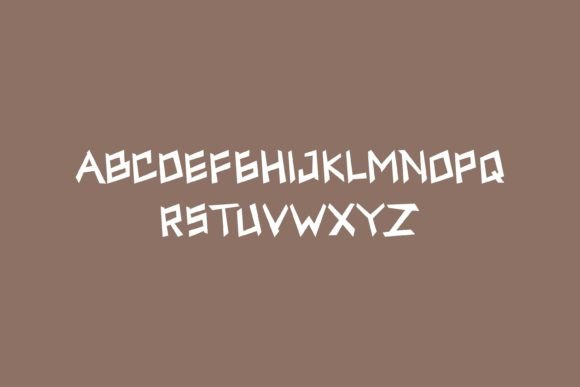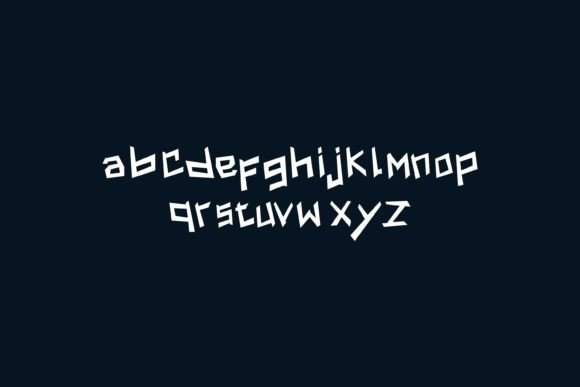
Brokman Font: Elevate Your Branding with a Bold and Authentic Display Font
In the world of design, fonts play a crucial role in conveying the message and aesthetic of a brand. A well-chosen font can make all the difference in creating a lasting impression on your audience. If you’re looking for a font that exudes confidence, modernity, and authenticity, look no further than Brokman Font. This bold and authentic display font is suitable for a wide range of branding projects, including logos, t-shirt printing, exports, and more.
What is Brokman Font?
Brokman Font is a carefully crafted display font designed to make a statement. Its bold and sturdy structure makes it perfect for headlines, titles, and short texts. The font’s authentic feel gives it a unique character that sets it apart from other fonts in the market. Whether you’re looking to create a logo, brochure, or social media graphics, Brokman Font is an excellent choice.
Key Features of Brokman Font
- Bold and Authentic: Brokman Font boasts a bold and authentic design that gives it a distinctive edge.
- Modern and Outstanding: The font’s modern aesthetic makes it suitable for a wide range of contexts, from digital media to print materials.
- High Versatility: Brokman Font can be used for various branding projects, including logos, t-shirt printing, exports, and more.
- Ease of Readability: Despite its bold structure, Brokman Font remains highly readable, making it perfect for short texts and headlines.
Use Cases for Brokman Font
Brokman Font’s versatility makes it an excellent choice for various design projects. Here are some use cases where Brokman Font shines:
- Logo Design: Create a lasting impression with a bold and authentic logo that showcases your brand’s personality.
- T-Shirt Printing: Add a modern touch to your apparel designs with Brokman Font’s bold and eye-catching style.
- Exports and Merchandise: Use Brokman Font to create stunning merchandise, such as stickers, posters, and brochures, that showcase your brand’s identity.
- Digital Media: Enhance your social media graphics, presentations, and website headers with Brokman Font’s modern and outstanding aesthetic.
Why Choose Brokman Font?
With so many fonts available in the market, why choose Brokman Font? Here are some compelling reasons:
- Unique Character: Brokman Font’s authentic feel sets it apart from other fonts, giving your designs a distinctive edge.
- Time-Saving: With Brokman Font, you can create stunning designs quickly and efficiently, saving you time and effort.
In conclusion, Brokman Font is an exceptional display font that offers a bold, authentic, and modern aesthetic suitable for various branding projects. Its versatility, readability, and unique character make it an excellent choice for designers and crafters looking to elevate their designs. Whether you’re creating a logo, t-shirt printing, or digital media, Brokman Font is sure to make a lasting impression on your audience.